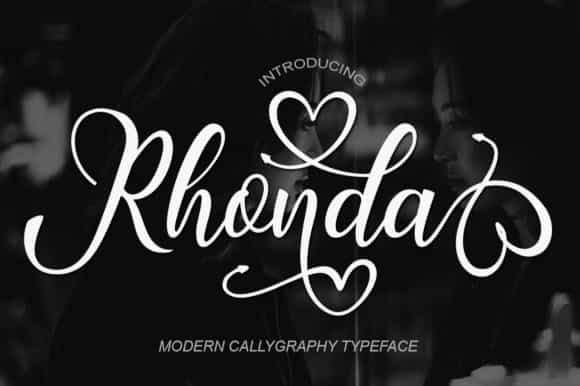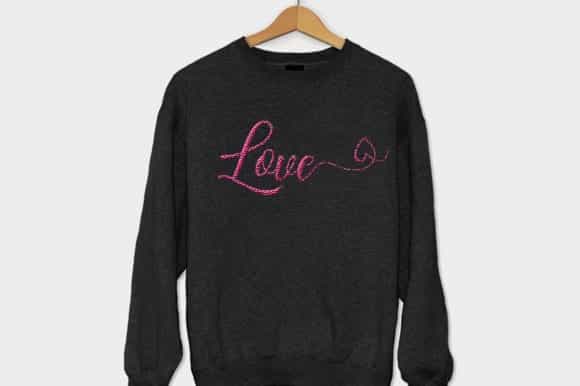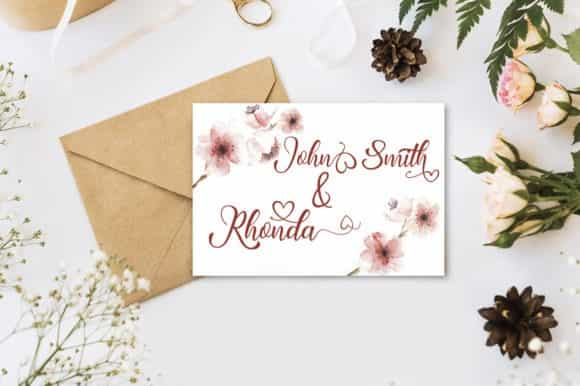
Rhonda Font is a lovely modern script with a handwritten calligraphy style, decorative characters and a dancing baseline! Rhonda Font looks so great on invitation like greeting cards, branding materials, business cards, quotes, posters and the list goes on.